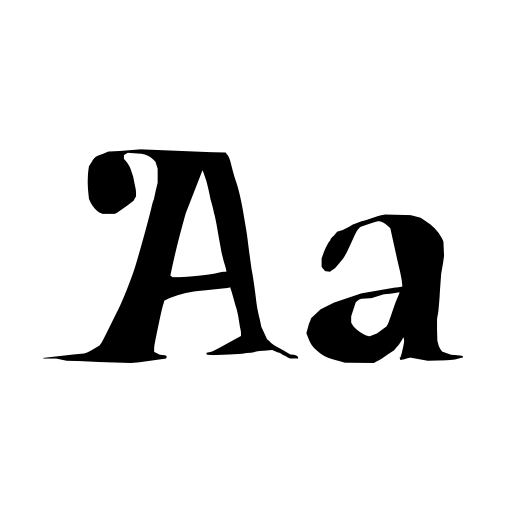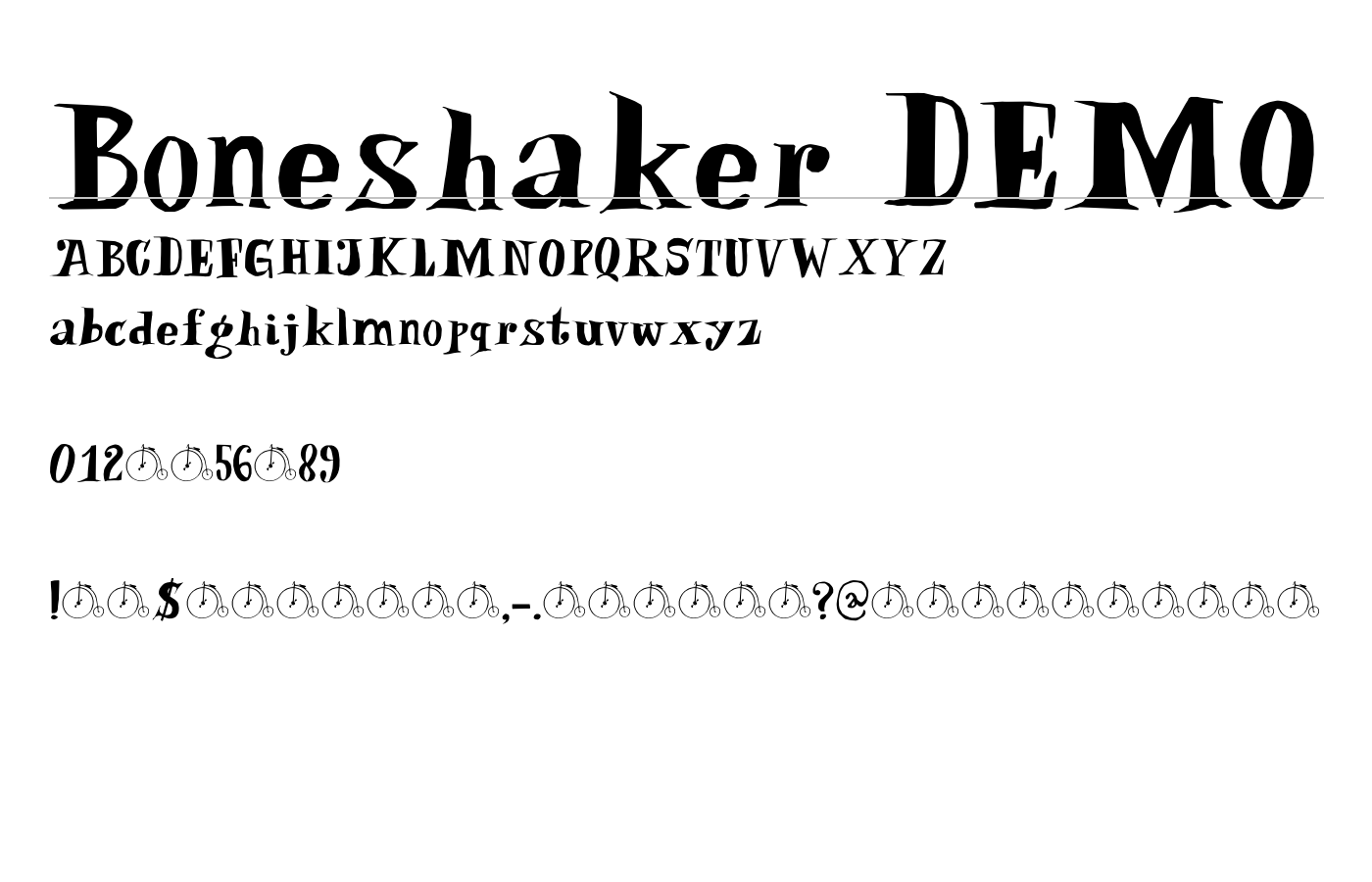
Boneshaker DEMO is a quirky serif font with an uneven, hand-crafted charm that blends vintage and playful styles. Its irregular stroke widths, exaggerated serifs, and distinct letterforms create a lively, expressive feel ideal for attention-grabbing headlines, themed posters, or branding that wants a rustic, whimsical touch. This font works best where personality and uniqueness are key, rather than long passages of text.
Boneshaker DEMO Font
About Boneshaker DEMO Font